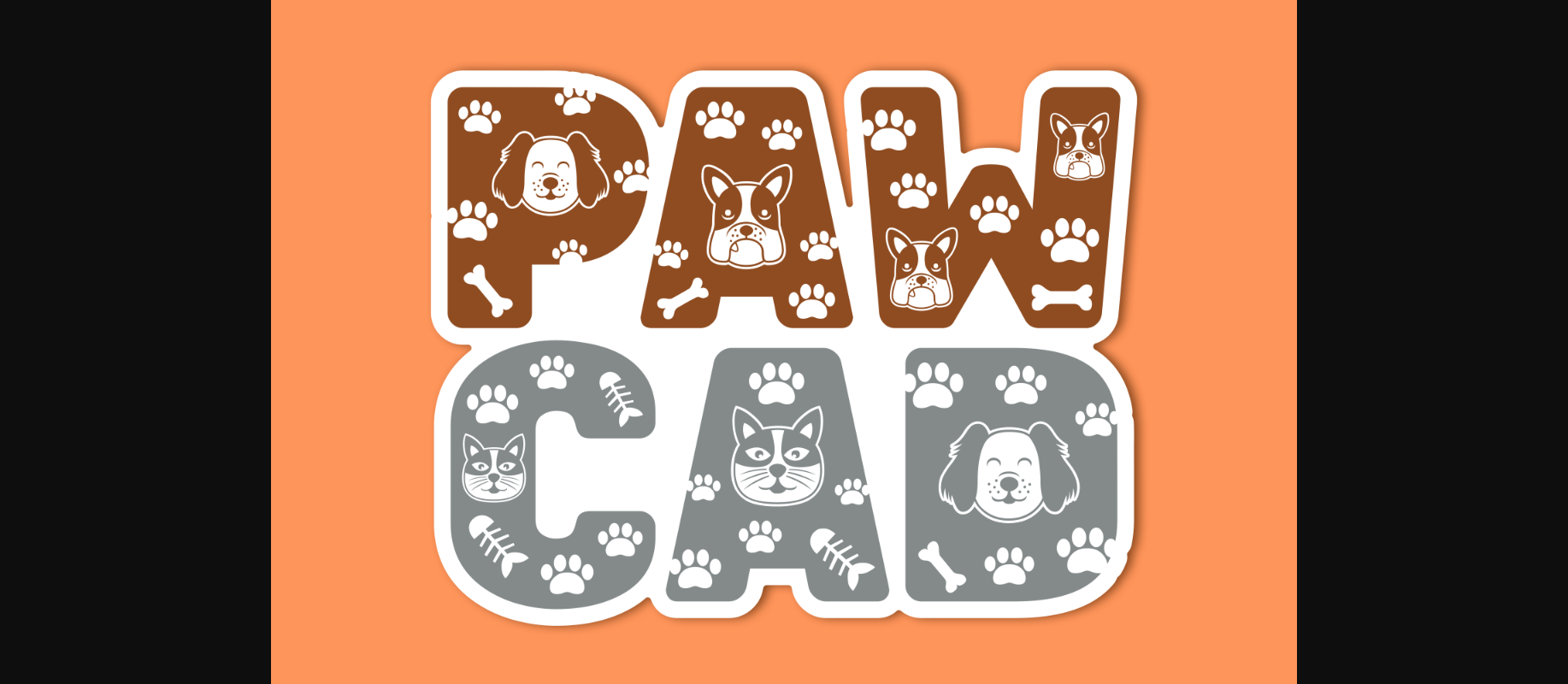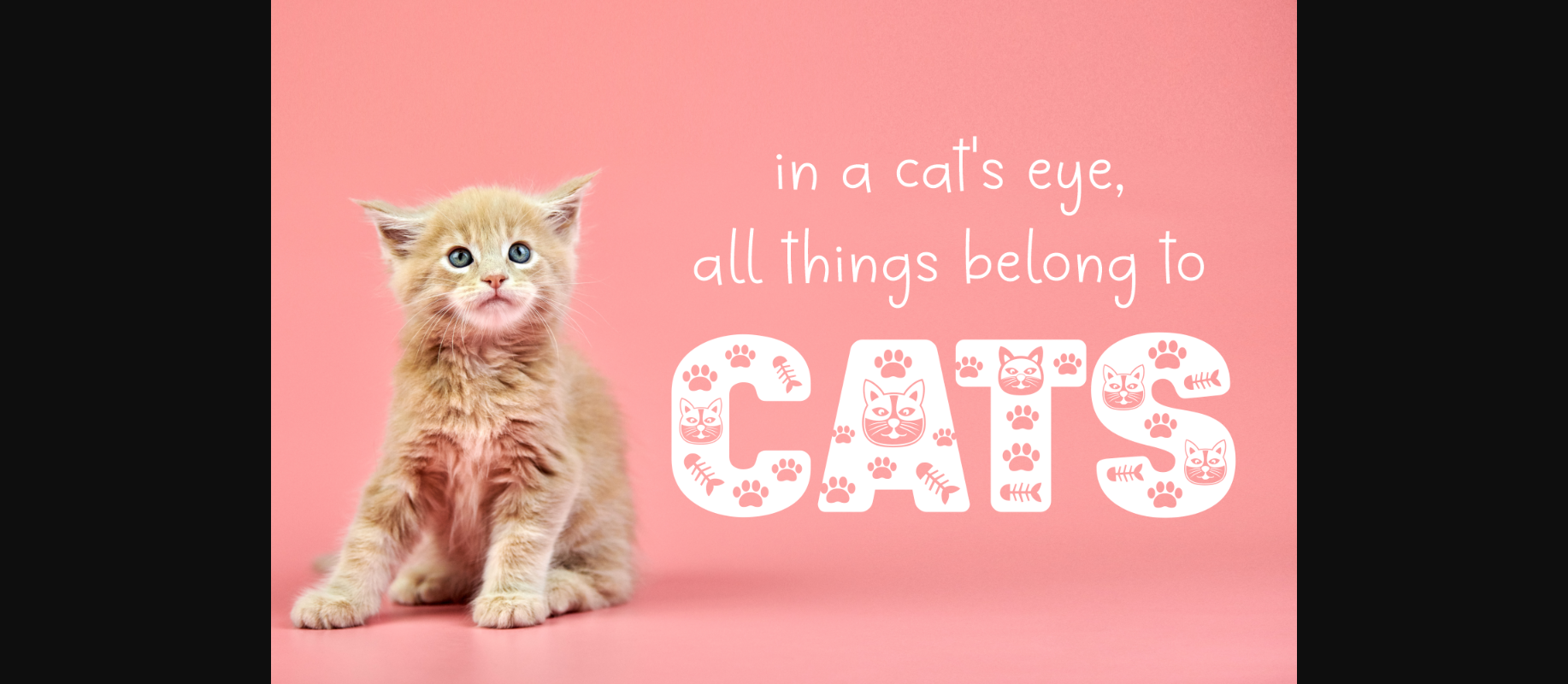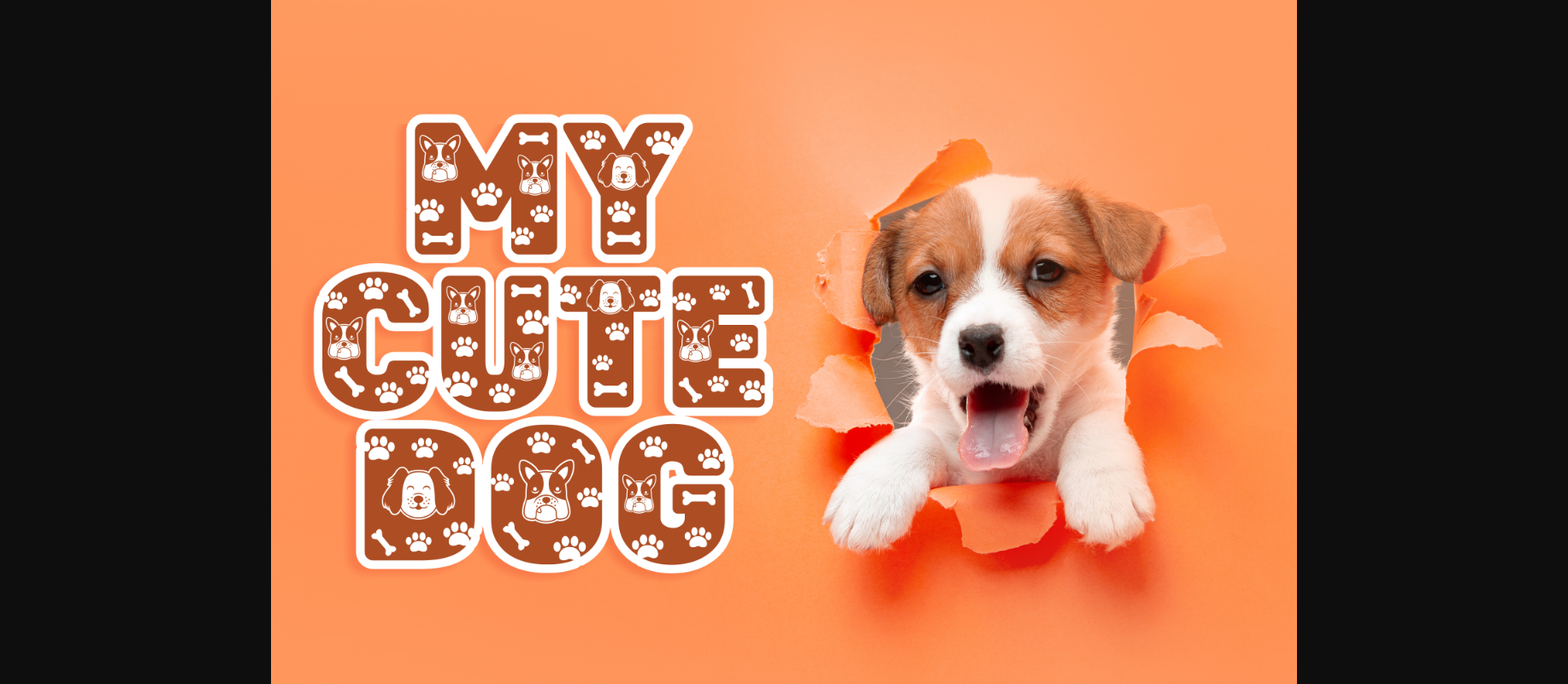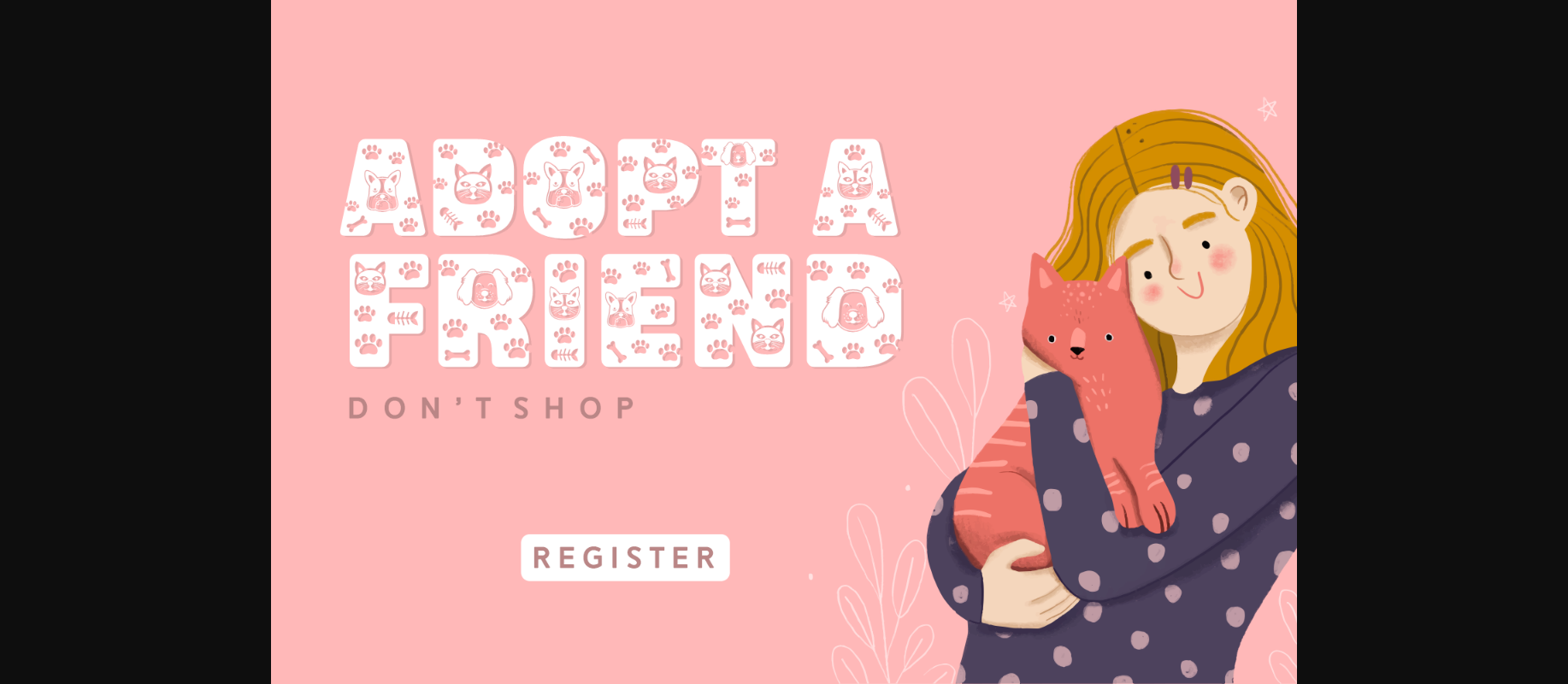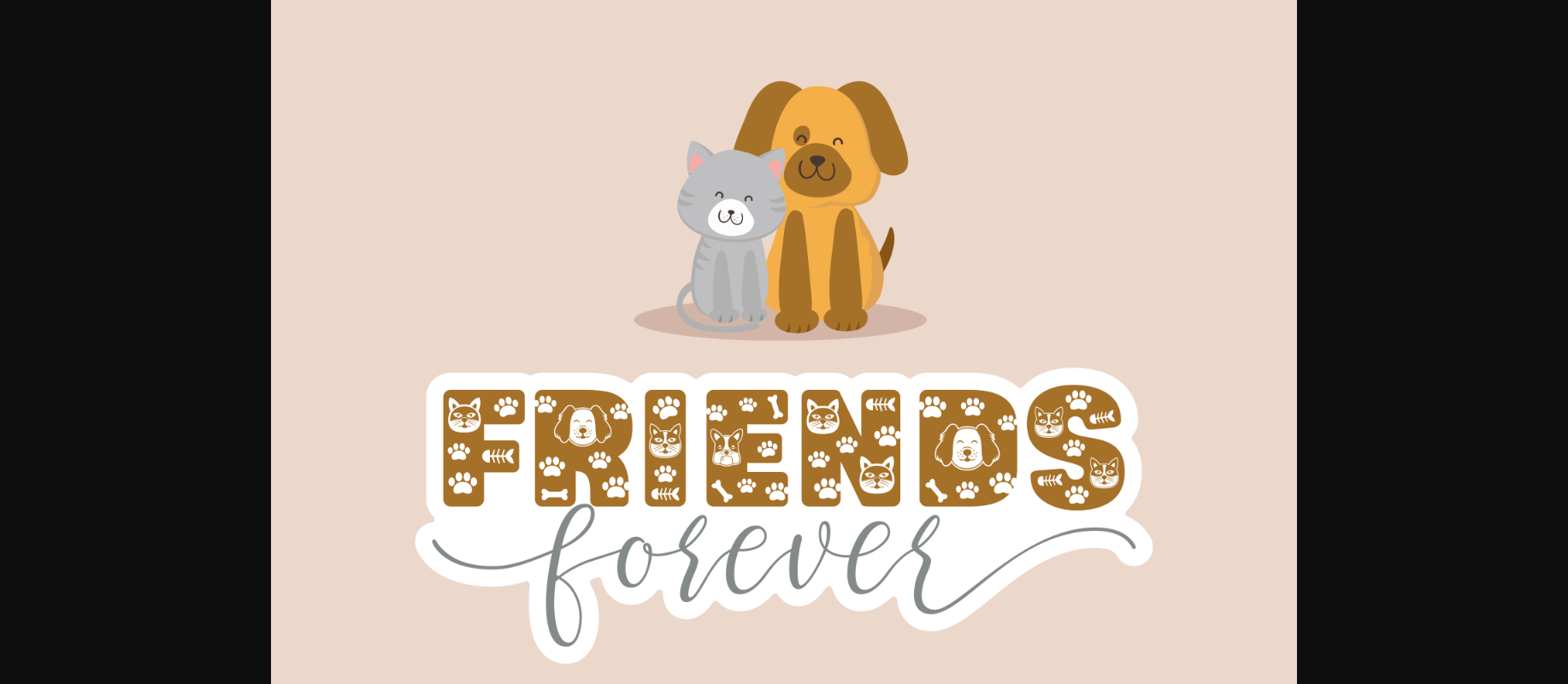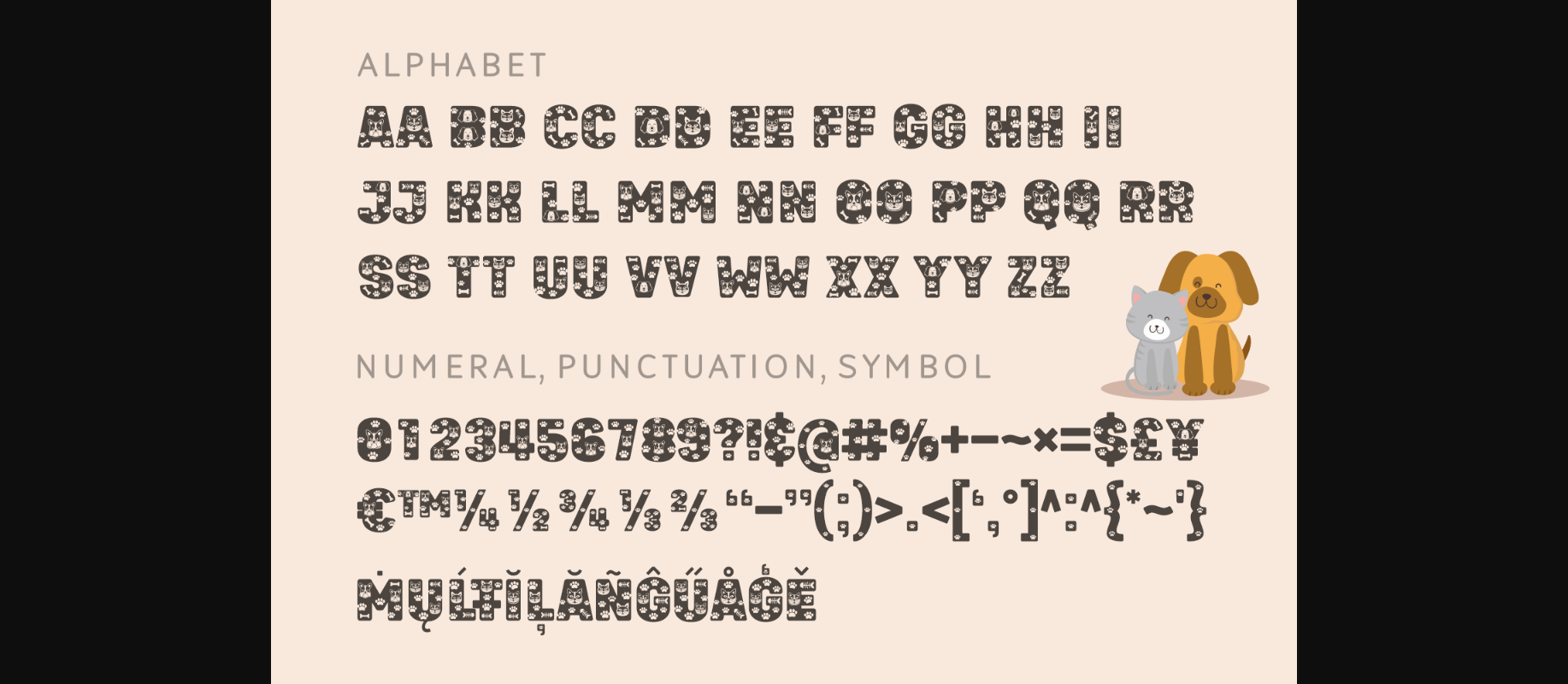
Calling all cat and dog lovers – Paw Cad is a fun font featuring design elements of beloved furry friends in each glyph. It is the perfect typeface for your pet-inspired crafts, gifts, designs, and more!